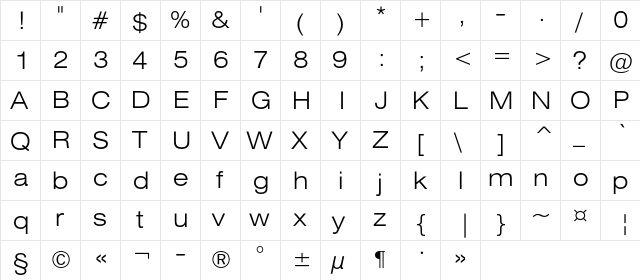
HeliosExtLight Regular
Design Context for HeliosExtLight Typeface
HeliosExtLight offers clean, dependable letterforms without strong stylistic allegiance, making it a practical choice for designers who need flexibility. Its slender proportions lend an understated elegance to any composition.
Pro Tip: Pair HeliosExtLight with a font of contrasting weight or personality to build a more expressive typographic hierarchy.